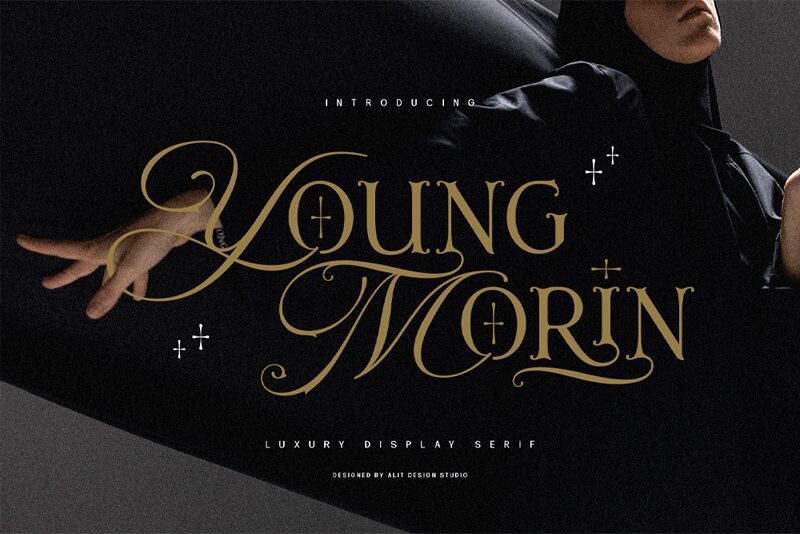
Young Morin font by Alit Design is a fancy free font featuring exquisite letter designs. The letters have plenty of decorative elements that give this typeface a luxurious feel. It is focused on display use, which makes it a good choice for creating timeless and elegant typography. The letters have dramatic shapes that give the overall design a bold appearance, which makes it stand out in any design composition. This font manages to combine a vintage style twist with a renewed modern design, a characteristic which makes it very special.
Display Young Morin font at its best in high-end luxury branding projects, packaging, and product labels that need to emphasize elegance. Use it in beautiful logotypes or typography-focused advertising with stylish titles and headers. Other use cases include magazine covers and inside design, posters, flyers, signage, books, invites, and more.